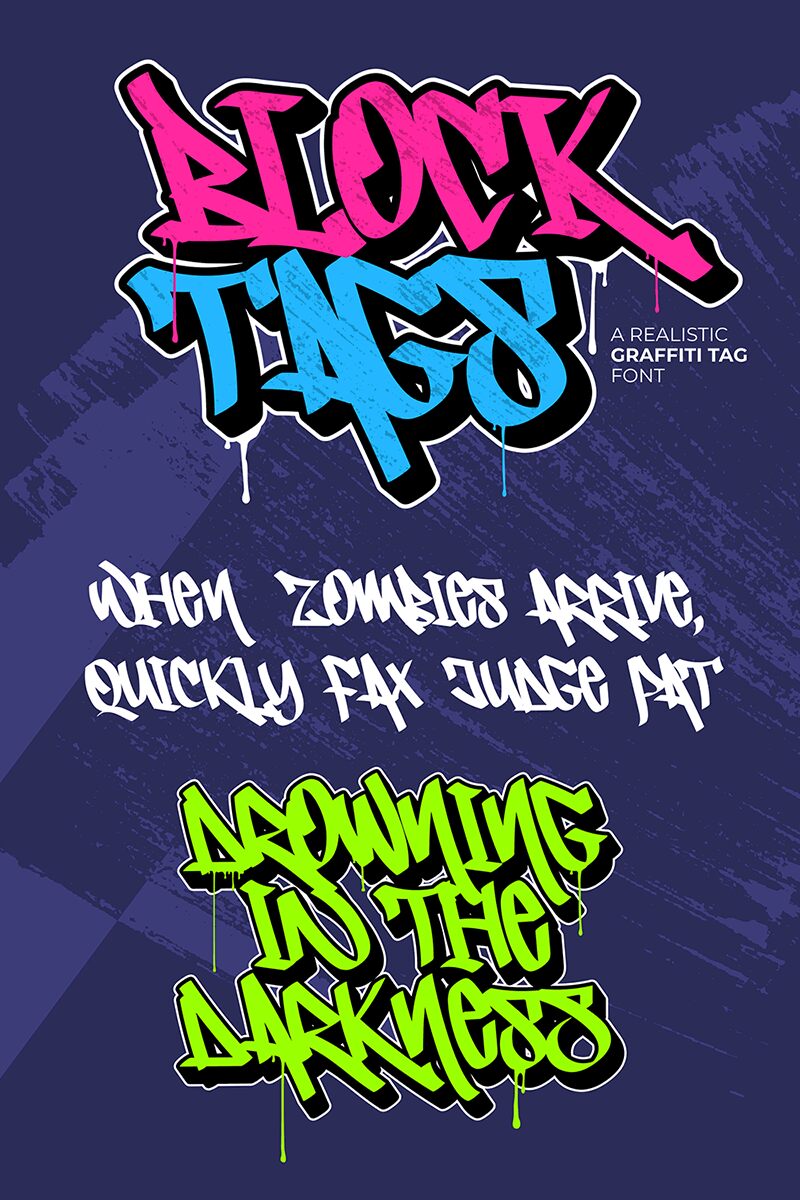
Block Tags graffiti typeface created by Figuree Studio is a heavy and textured font that will bring out the real urban vibes. This font is inspired by graffiti art and carries the essence of rebellion with the use of unconventional and sharp strokes and stylistic alternates. Block Tags is a perfect choice for your design projects like clothing and merchandise labels, poster design, and art photography branding. It can also be used for invitation and greeting cards design.